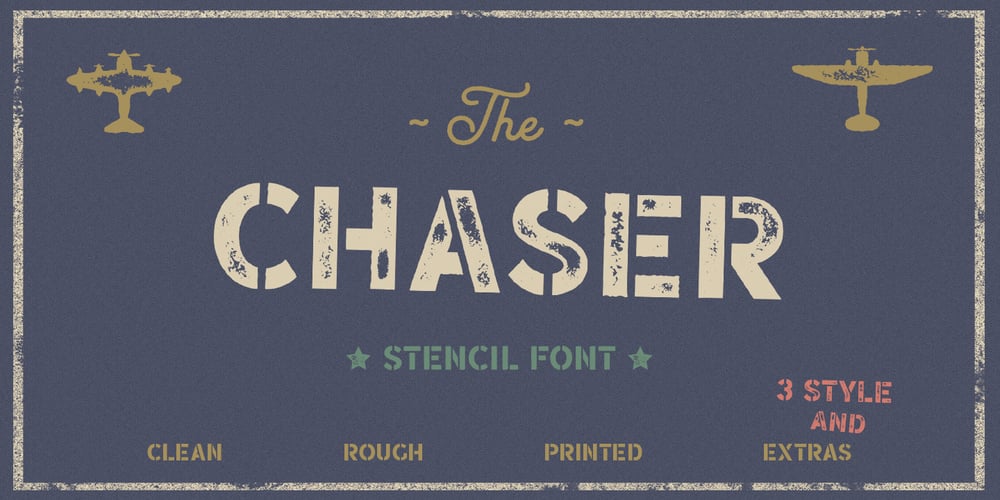
Chaser
Chaser font
Chaser Font Family was designed by Pavel Larin and published by Larin Type Co. Chaser contains 3 styles and family package options. Chaser is stencil font inspired by aviation and military style includes 3 sections ( clean, rough, printed). this font is a narrow specialization, it will be an excellent option for projects in the military style in both modern and vintage versions. This font also includes several illustrations that may be useful for creating your project and will be a useful addition.